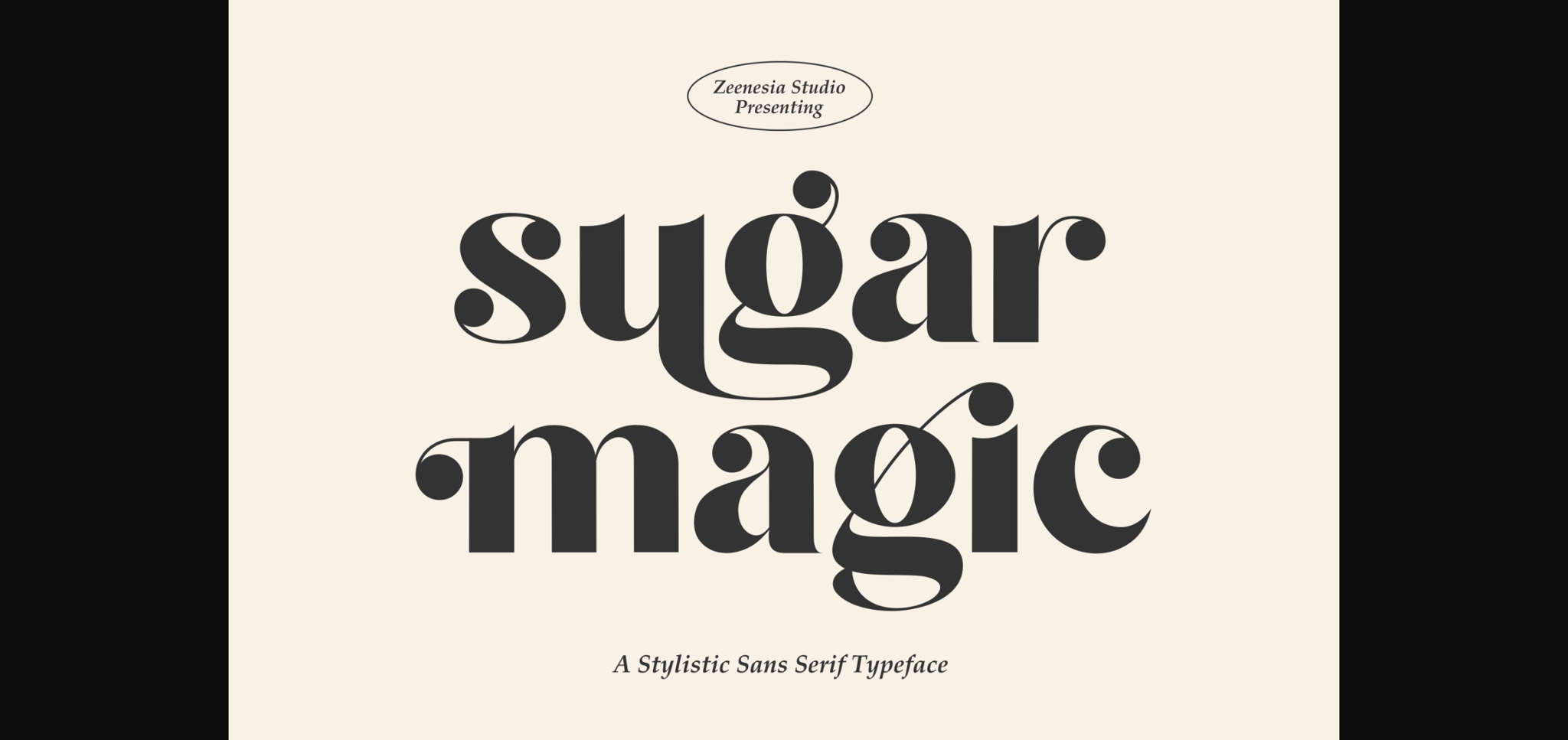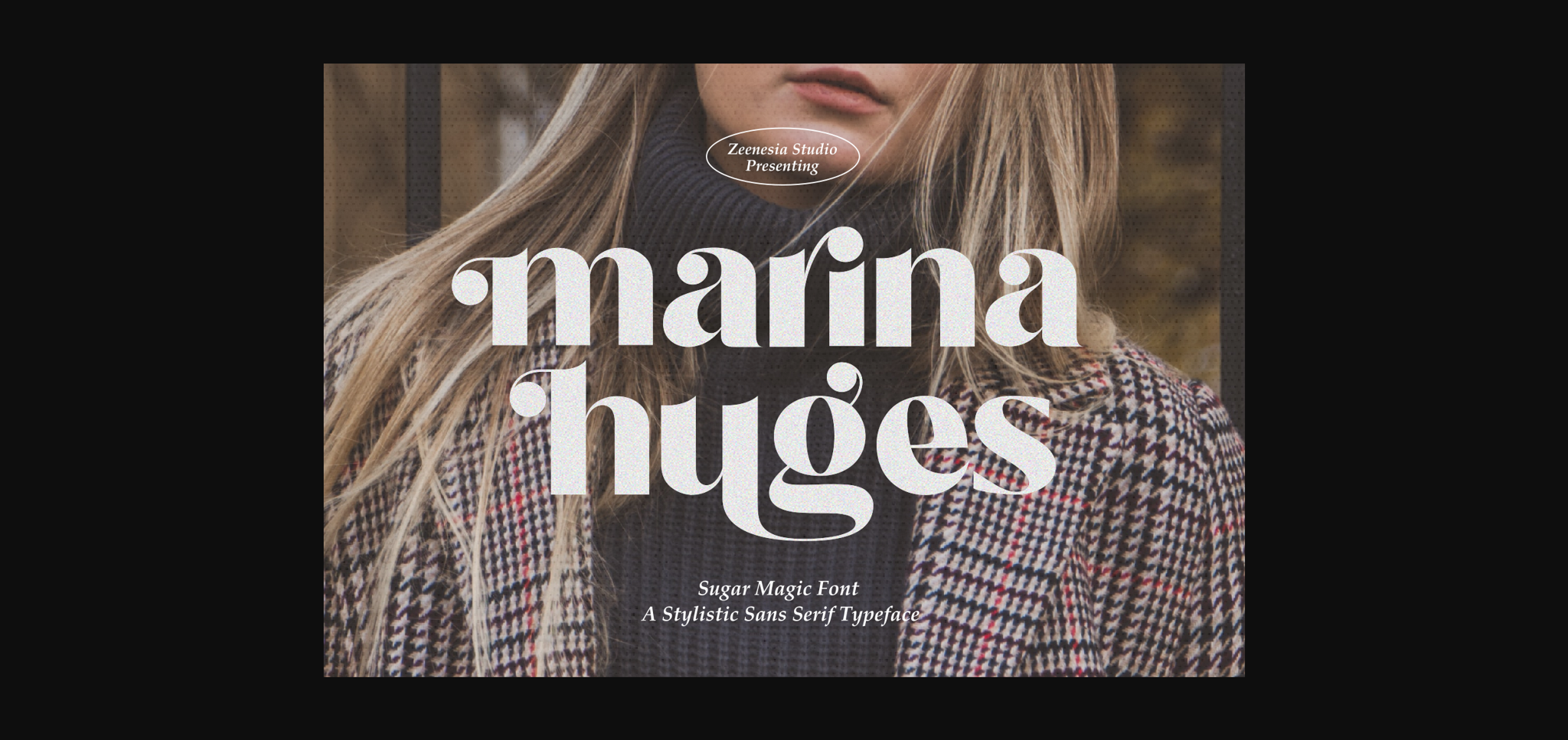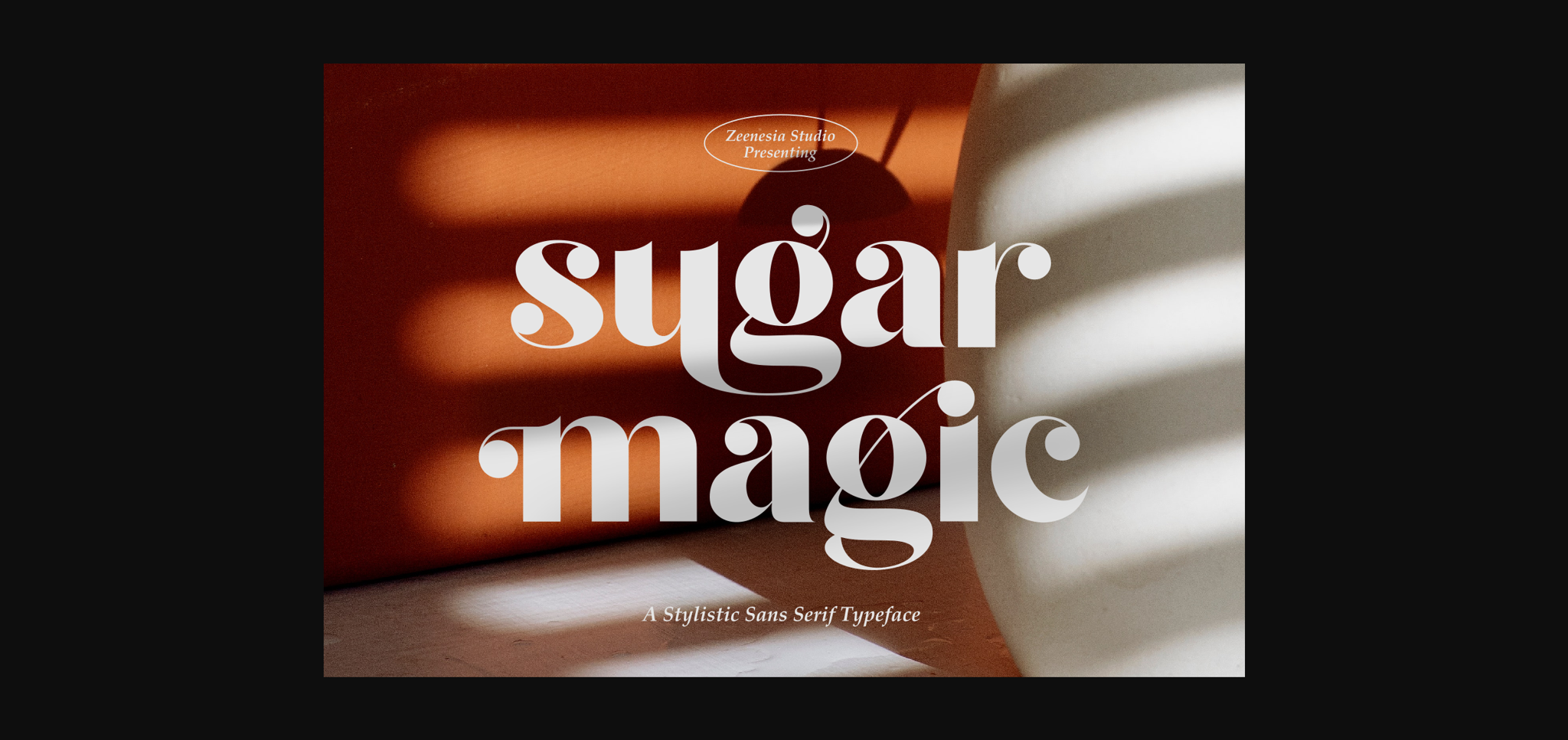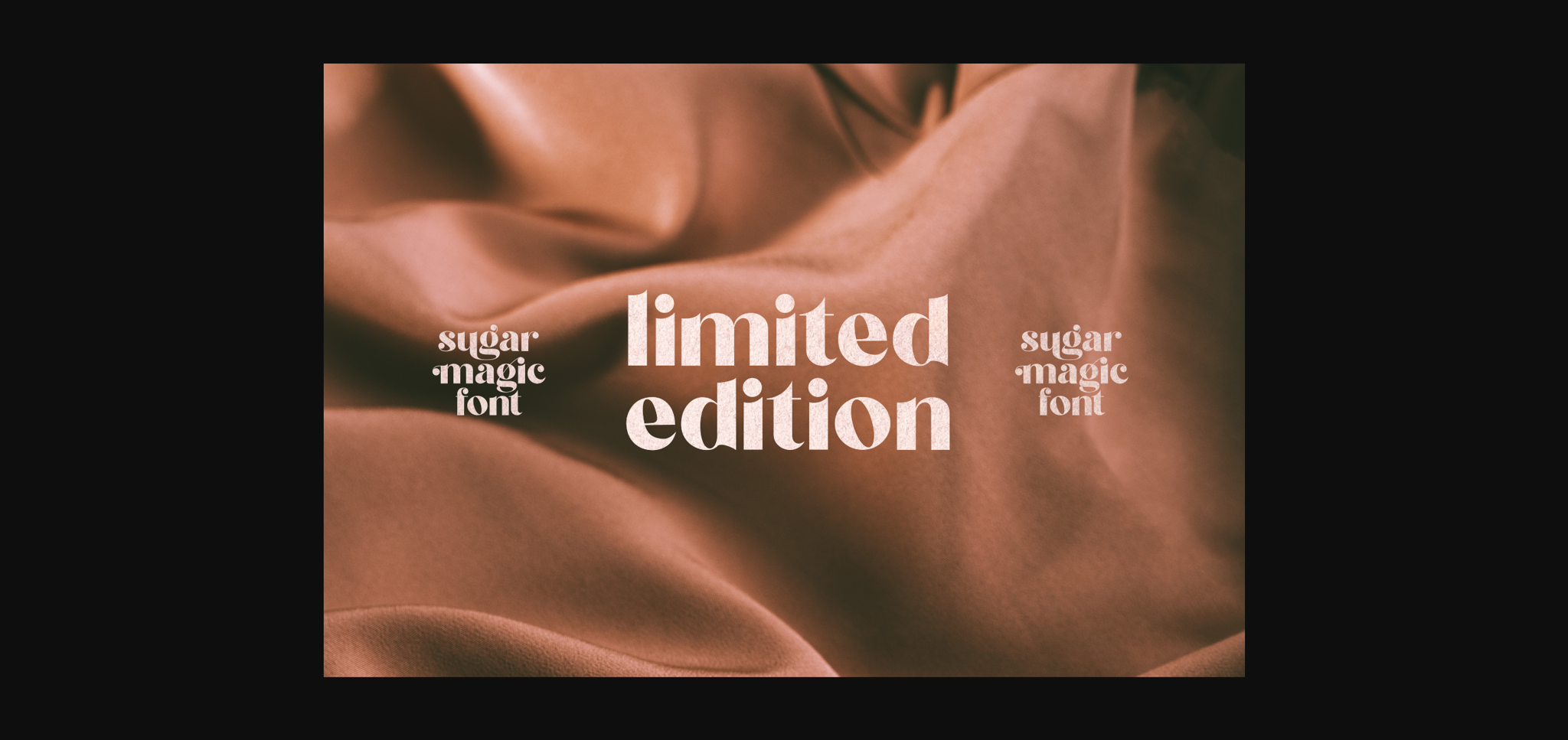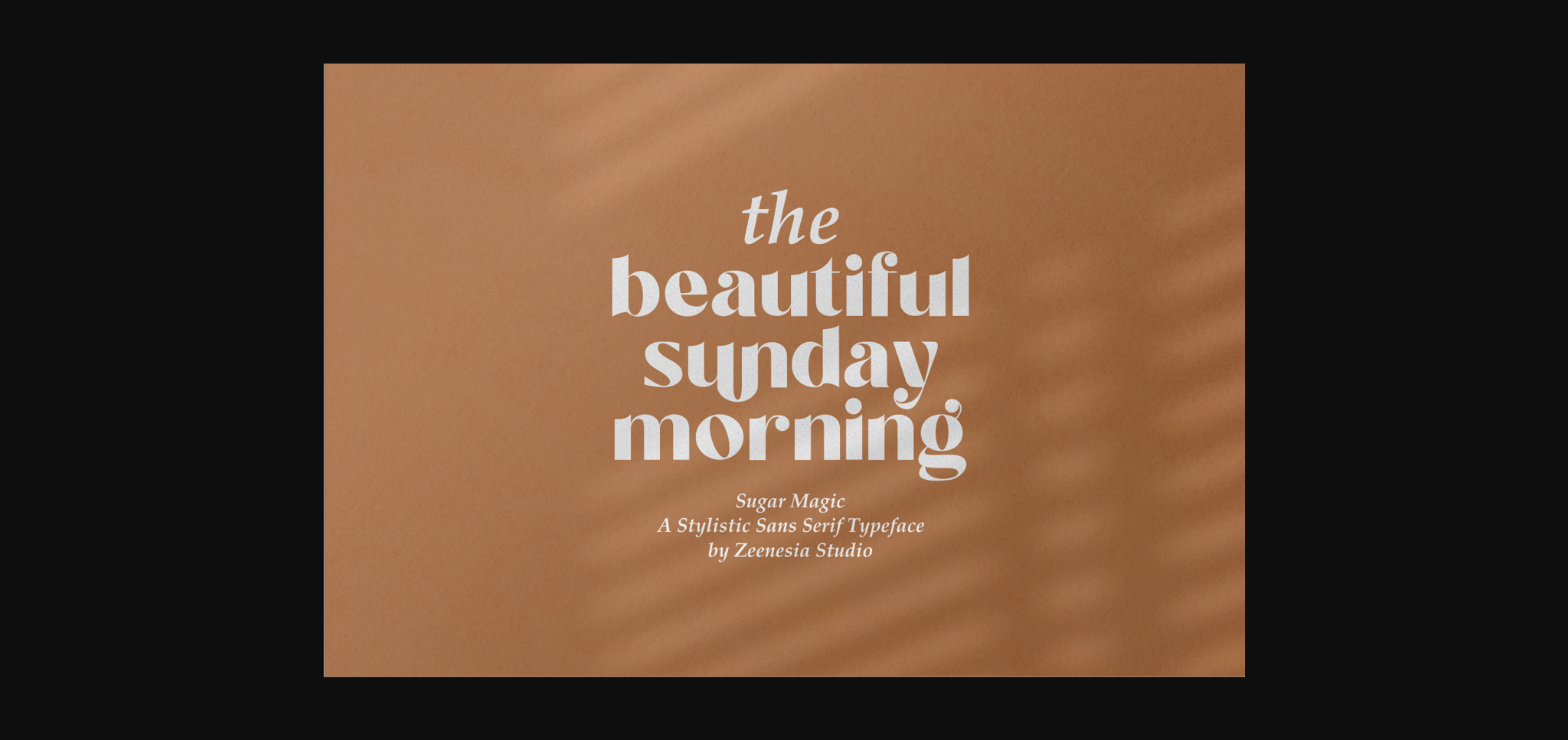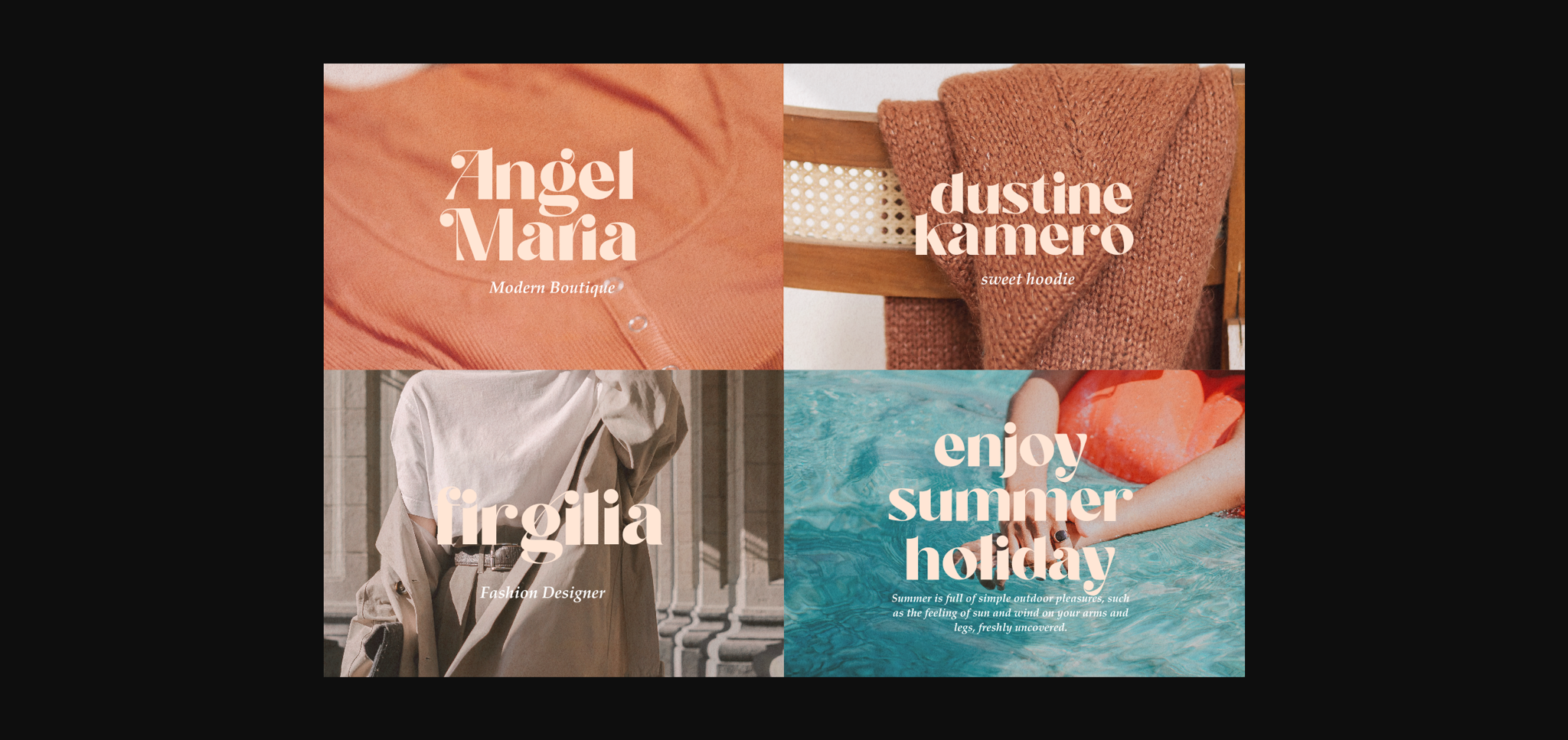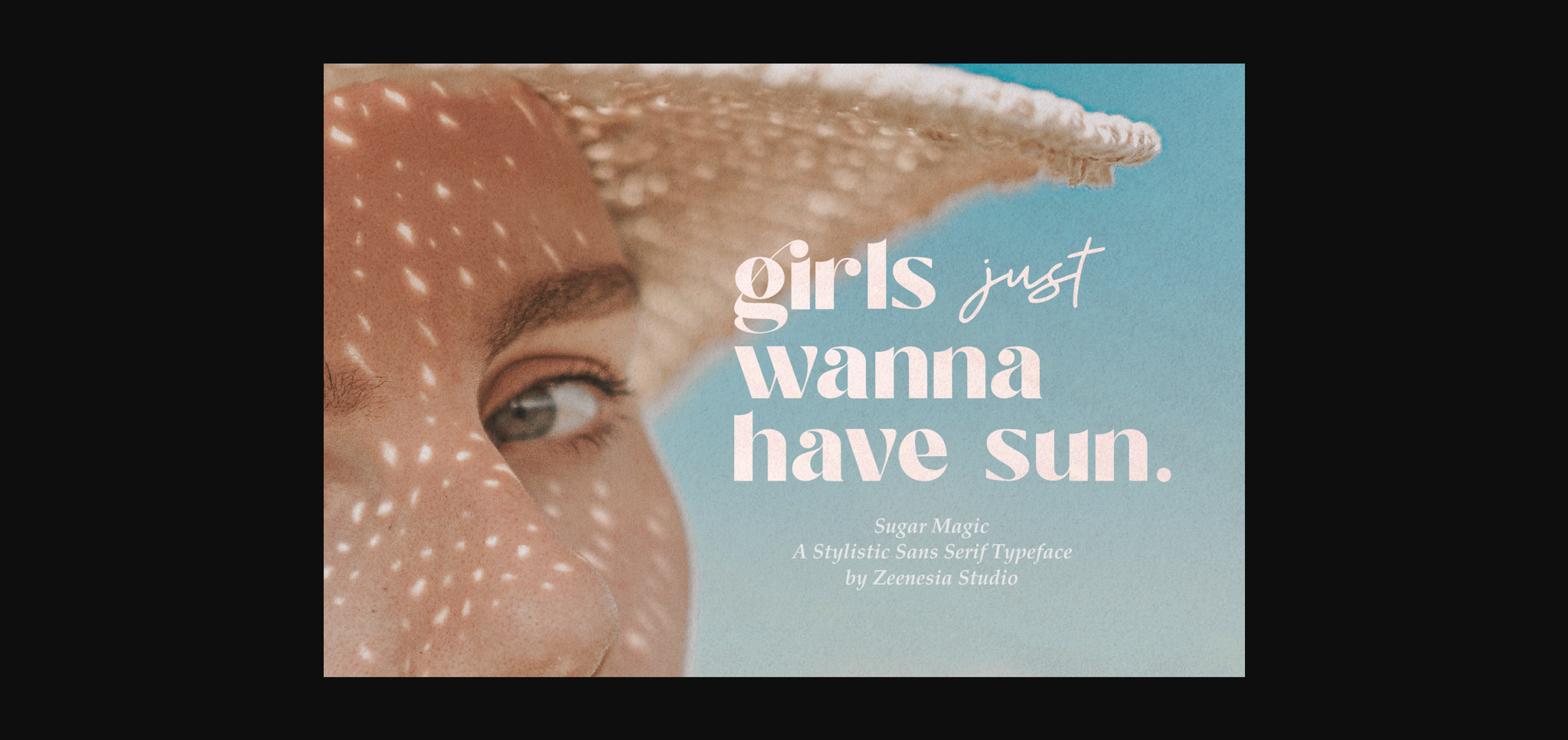
Sugar Magic Font
About Sugar Magic Font
Sugar Magic is a modern and elegant sans-serif font. Sugar Magic is well-suited for advertising, branding, logotypes, packaging, titles, headlines, and editorial designs.